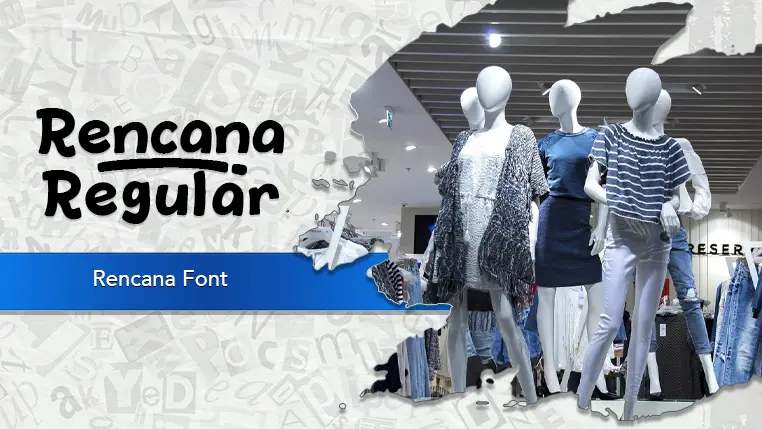
The Rencana font family may be ideal for you if you enjoy working on an artistic design project. The lively, expressive look of this typeface, which was created by Khurasan, makes it ideal for Logos where a personalized, handwritten touch is desired, For lifestyle brands, small businesses, or creative ventures that want a friendly and approachable identity (e.g., cafes, bakeries, craft shops, personal blogs), Graphics for Instagram, Pinterest, or YouTube, especially for quotes, short messages, or branding for influencers and content creators, itles and banners for personal blogs or online shops, Informal party invitations (birthdays, casual gatherings), Greeting cards, thank-you notes, or personalized stationery, Any project where you want a cheerful and spontaneous textual element. and other light-hearted visual projects.
Regular are the one primary font styles of the Rencana font family. You may build dynamic, visually appealing text layouts with the distinct flair that each style offers. With crisp, readable lines and a relaxed tone.